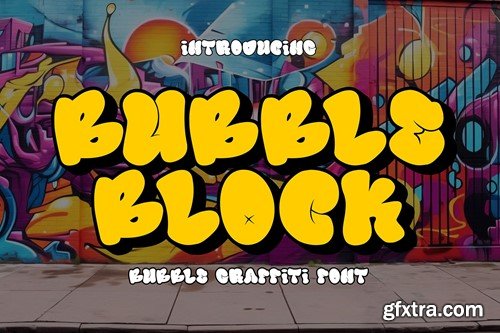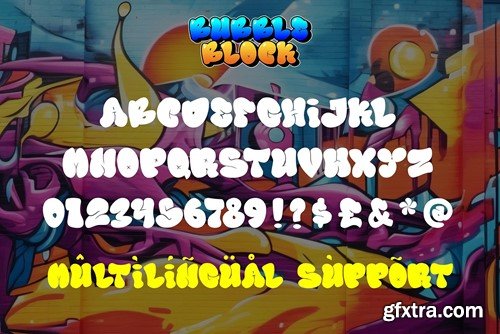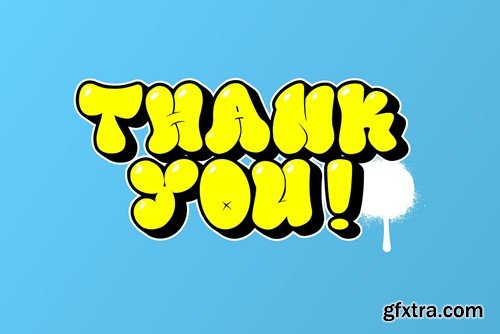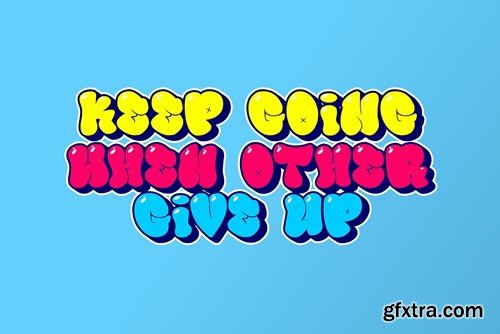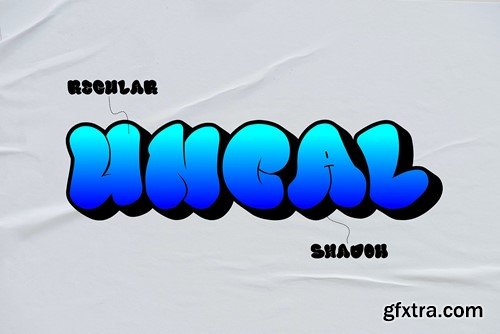
泡泡块 - 多层涂鸦字体 XLA4YLC
Elevate your urban designs to a whole new level with Bubble Block, the layered graffiti font that pops off the canvas with explosive style. More than just a font, Bubble Block is a visual playground where each layer adds depth and dynamism, turning your words into a three-dimensional graffiti masterpiece. Crafted with precision and urban flair, Bubble Block stands at the forefront of graffiti fonts, offering a symphony of layers that tell a story of rebellion and creative innovation. Whether you're designing for posters or any project that demands an edgy aesthetic, this font ensures your words become a vibrant expression of urban attitude. Bubble Block isn't just a font; it's an immersive experience, a bold declaration on the walls of contemporary typography. Transform your designs into a layered masterpiece with the explosive, urban energy of Bubble Block – because the streets have never seen graffiti quite like this! File Included: Features: That's it! If you have any questions don't hesitate to ask! Stay Classy!